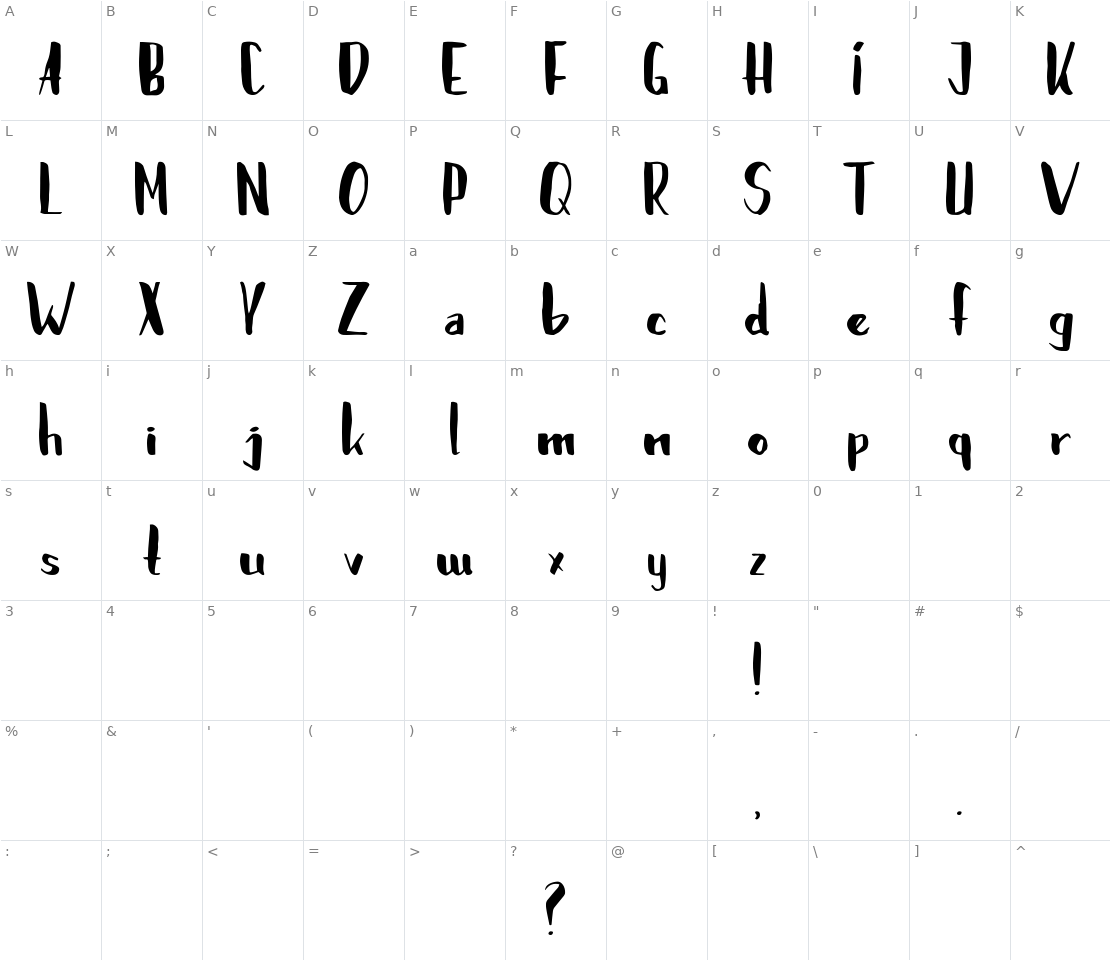
Brushylicious
Brushylicious is a thick, energetic brush script from Pollux of Geminorum that feels like someone grabbed a loaded paintbrush and went at it with real enthusiasm. The strokes are bold and loose, with visible texture and a casual bounce that keeps things playful without falling apart. Built for headlines, posters, and anywhere you want hand-lettered personality with serious visual weight.